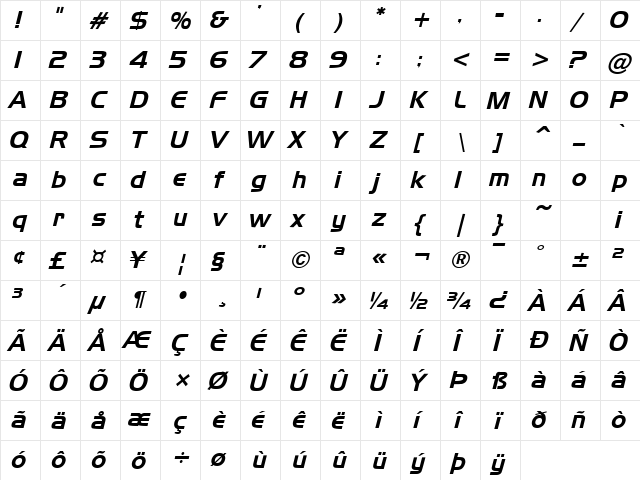
Newtown Italic
Design Context for Newtown Typeface
Newtown takes a measured approach to typography — its balanced proportions and neutral character make it a reliable workhorse for both digital and print work. Its italic angle brings a sense of urgency and motion to the letterforms.
Pro Tip: Try Newtown for annotation and caption copy alongside an upright companion — the contrast in angle creates a dynamic but ordered typographic system.